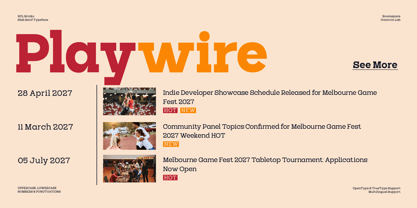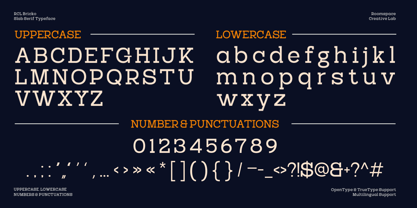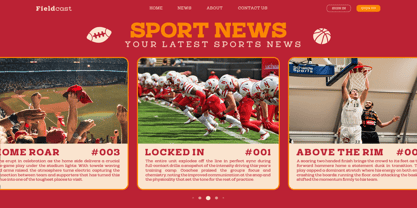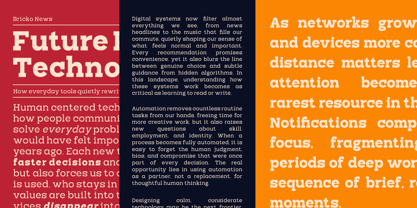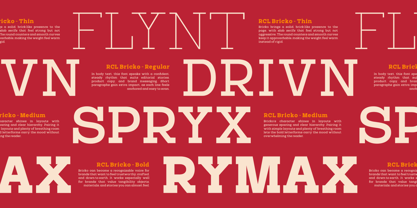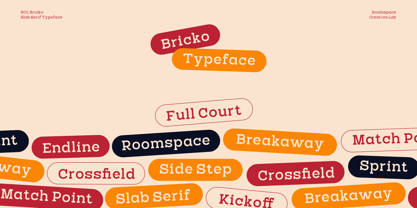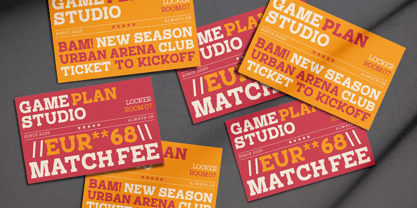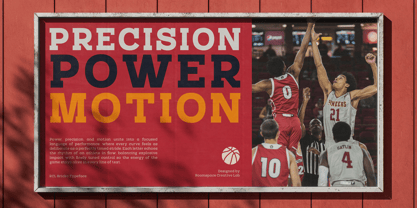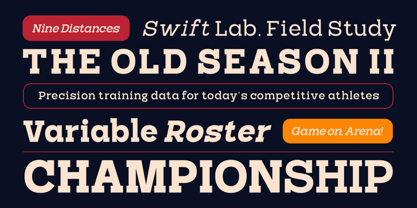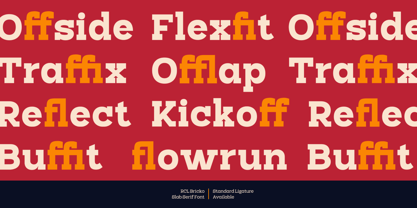
RCL Bricko
von Jafar07
Die Schriftfamilie RCL Bricko wurde von Bakhrudin Ja'far entworfen und von Jafar07 veröffentlicht. RCL Bricko enthält 14 Stile und Familienpaketoptionen. Mehr über diese Familie
Bricko is a modern slab serif font family with a strong character, solid structure, and high readability. Inspired by editorial typography and contemporary branding, Bricko feels bold yet clean ideal for designs that aim to appear confident, professional, and trustworthy. Meet Bricko, a modern slab serif font family designed to bring strength, clarity, and confidence into your designs. With solid letterforms and clean proportions, Bricko works beautifully for branding projects, editorial layouts, and bold headlines. Its versatility allows it to adapt effortlessly from corporate identities to modern digital layouts, making Bricko a dependable choice for contemporary creatives.
Designer: Bakhrudin Ja'far
Foundry: Jafar07